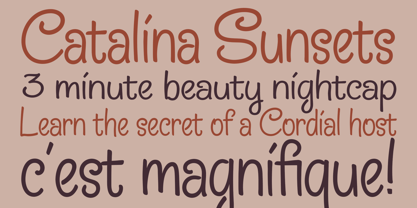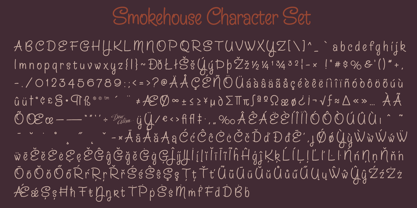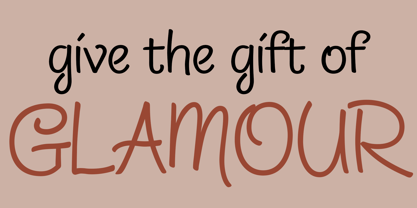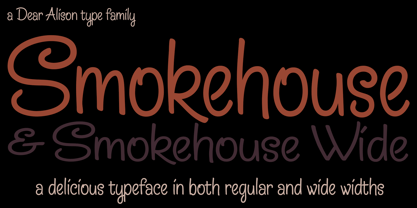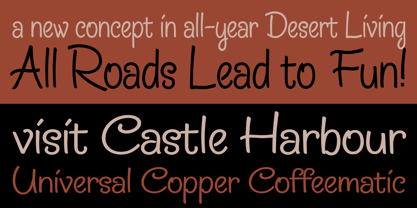
Smokehouse Wide Regular▲
Smokehouse is a relaxed, casual script typeface inspired by hand-painted signage, Southern barbecue joints, and the effortless charm of down-home hospitality.
With its smooth curves, confident strokes, and approachable personality, Smokehouse balances rustic warmth with polished readability. It carries the spirit of vintage sign painting while remaining versatile enough for modern branding and display work.
This is a script built on association. It naturally feels at home on barbecue menus, smokehouse signage, restaurant branding, and handcrafted packaging, yet it transitions just as beautifully into boutique logos, rustic wedding designs, lifestyle branding, event posters, and feminine product packaging. Its charm is adaptable without losing character.
Smokehouse includes uppercase and lowercase characters, multilingual support, numbers, punctuation, and symbol coverage designed for professional design use. The letterforms maintain a handcrafted rhythm while staying legible in headlines and display settings.
For projects that require a broader presence, Smokehouse Wide expands the horizontal proportions while preserving the personality of the original design. The wider structure makes it ideal for signage, packaging panels, and bold statement headlines where additional width enhances visual impact.
Whether used for food branding, rustic packaging, modern farmhouse aesthetics, boutique labels, or event design, Smokehouse delivers warmth, personality, and confident casual elegance.
Dear Alison is the creation of Alison Argento, a travel writer based in Cherry Hill, New Jersey. Although her work dictates that she spend most of her time typing and editing at the computer keyboard, she prefers the traditional look and feel of handwritten letters and the freehand lettering arts along with the look of vintage type.
Dear Alison fonts are meant to bring the handcrafted feel of personal correspondence to the digital age.